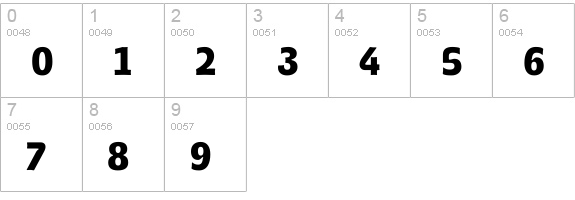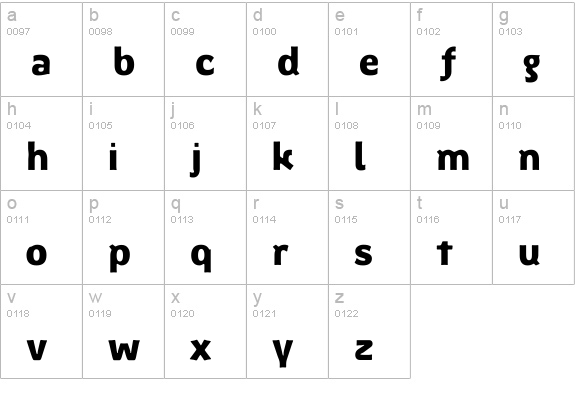
Spotka AlternateBlack is a modern and stylish font that exudes confidence and sophistication. With its bold and impactful design, this font is perfect for making a statement in your projects. The sharp edges and unique letterforms give Spotka AlternateBlack a distinctive look that will surely capture attention. What's even better is that Spotka AlternateBlack is available for free download at FontsMarket.com. This means you can add this eye-catching font to your collection without any cost. Whether you're working on a branding project, poster design, or any other creative endeavor, Spotka AlternateBlack is sure to elevate your work and leave a lasting impression. Don't miss out on this fantastic font - download it now and let your creativity shine!